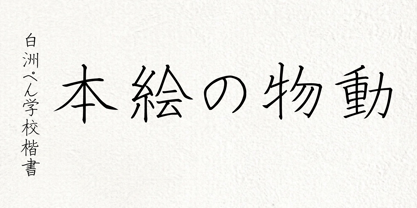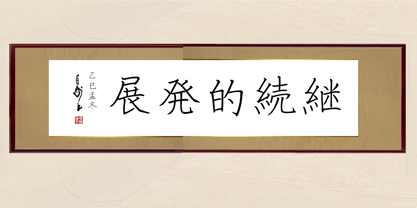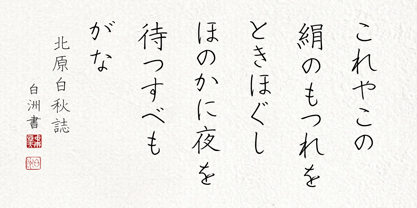
AH Hakushu School PRS
by Nihon Shogi Kenkyusho Co., Ltd
The AH Hakushu School PRS Font Family was designed by and published by Nihon Shogi Kenkyusho Co., Ltd. AH Hakushu School PRS contains 5 styles and family package options. More about this family
This typeface is designed to closely resemble handwritten characters and is based on the Ministry of Education, Culture, Sports, Science and Technology's official curriculum guidelines. Elements such as "hane" (upward flick), "tome" (stop), and "harai" (sweeping strokes) are also designed in adherence to the curriculum standards.
The alphanumeric characters, hiragana, and katakana in each font of this typeface family are designed as proportional glyphs, each with its own unique width.